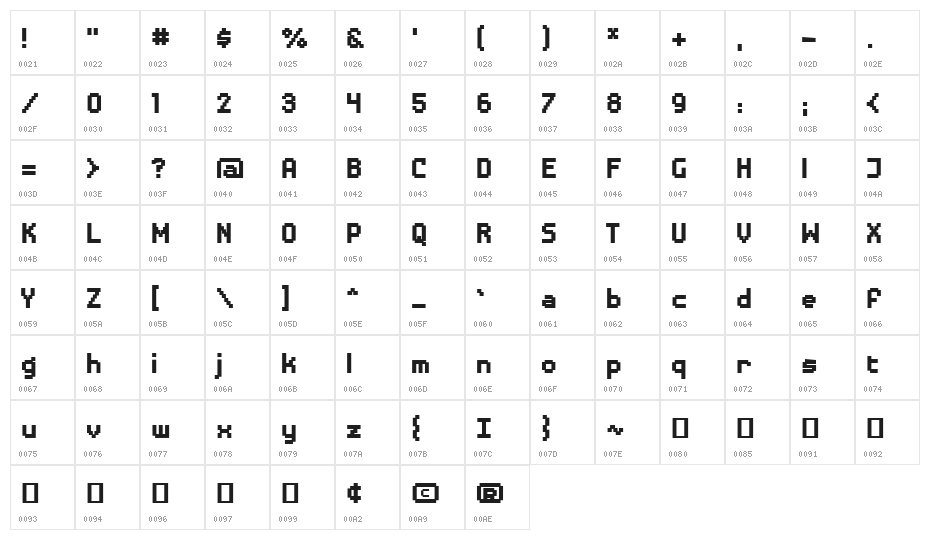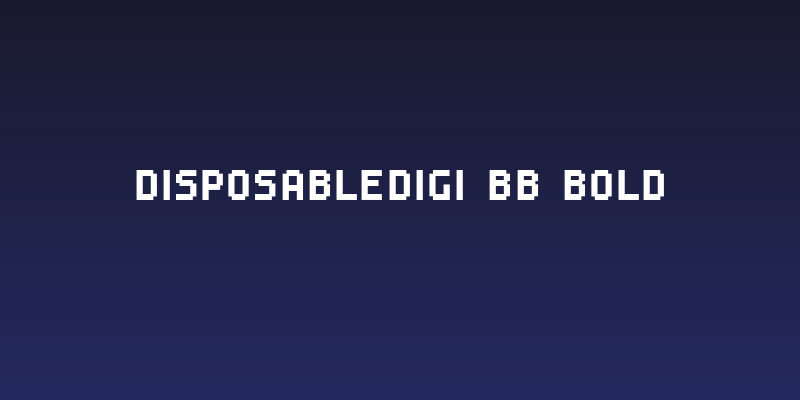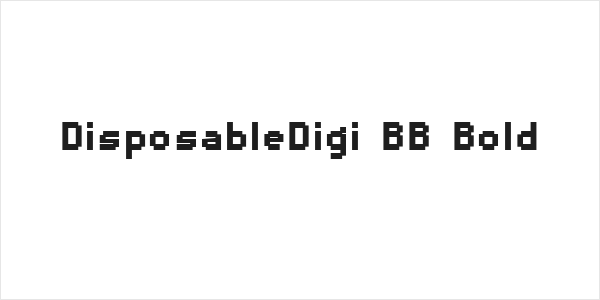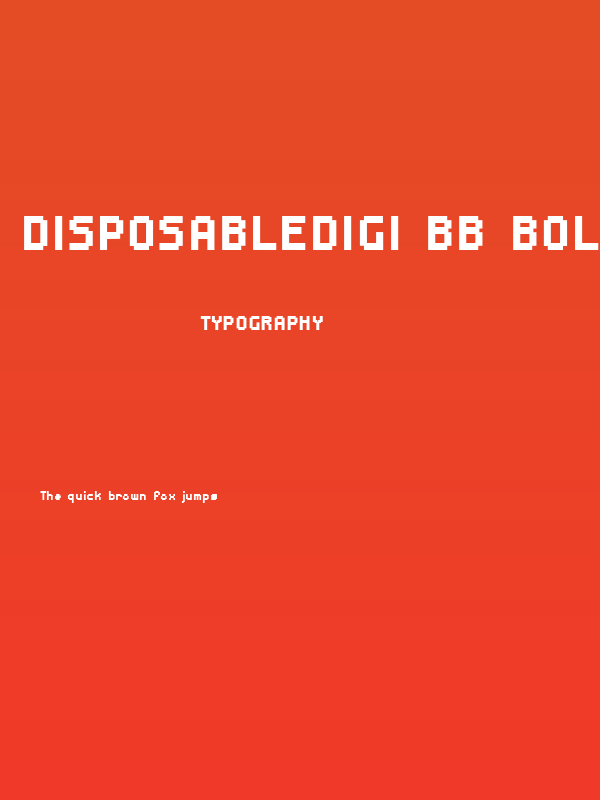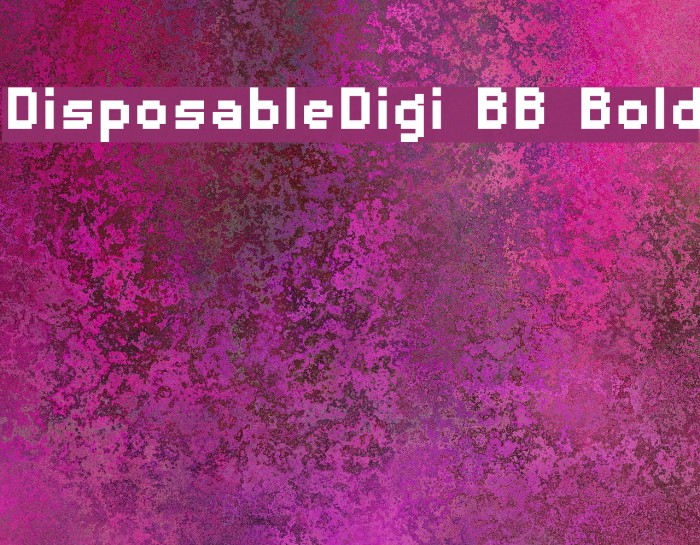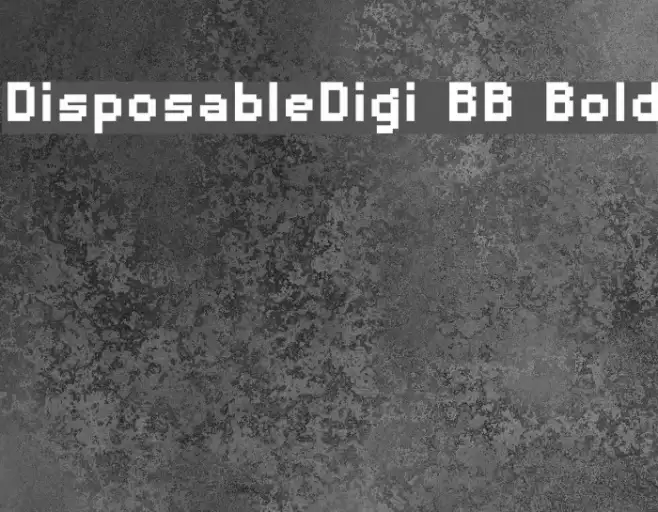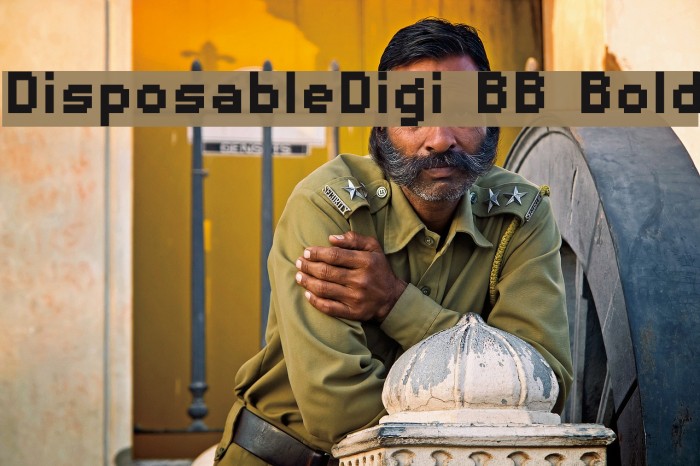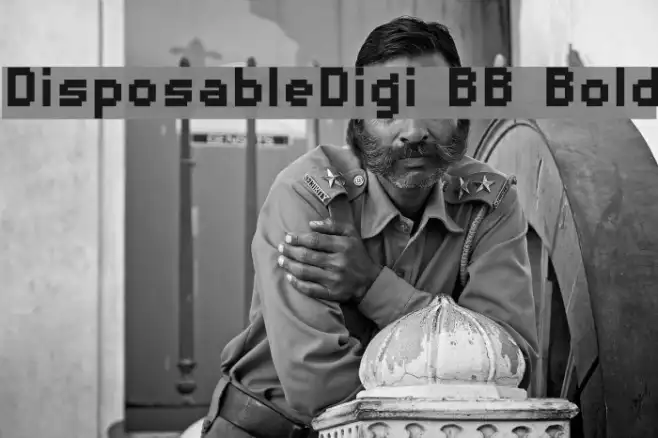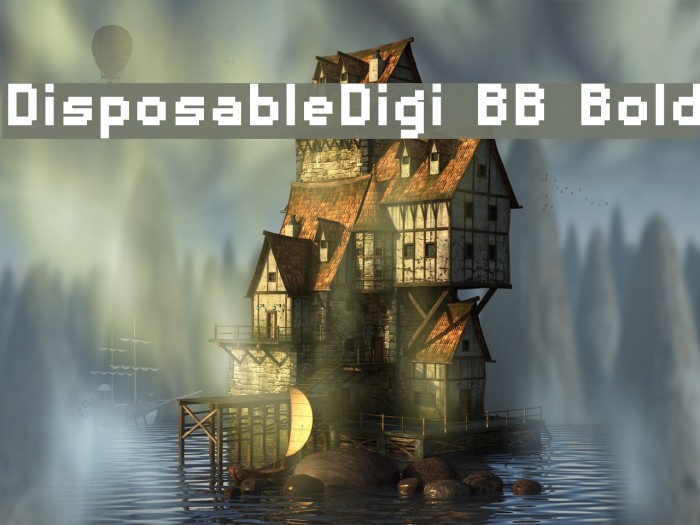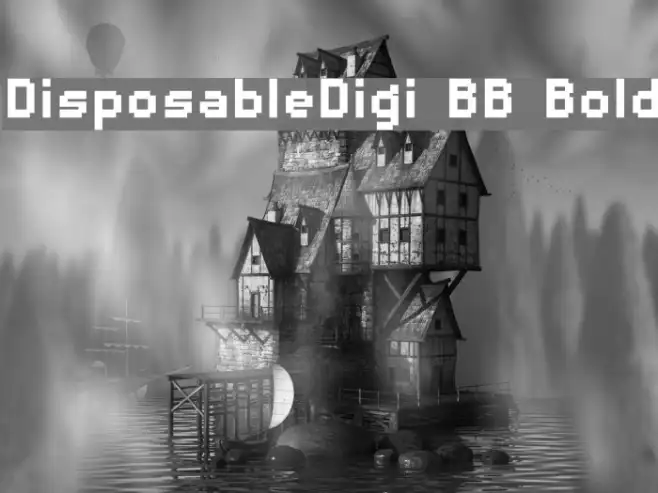
DisposableDigi BB Bold Font
DisposableDigi BB Bold Description
This font features a bold, pixelated design reminiscent of early digital displays and retro video games. Each character is constructed with a blocky, grid-like appearance, giving it a distinctly digital and technical feel. The uppercase and lowercase letters maintain a consistent height, enhancing its uniformity and readability. Numbers and special characters follow the same pixelated style, ensuring a cohesive look across all elements. The font's simplicity and geometric structure make it ideal for projects that require a vintage digital aesthetic.
| Use Case | Headlines, Logos, Digital displays |
| Proposed Projects | Ideal for video game design, tech-themed posters, digital art projects, and retro-style branding. |